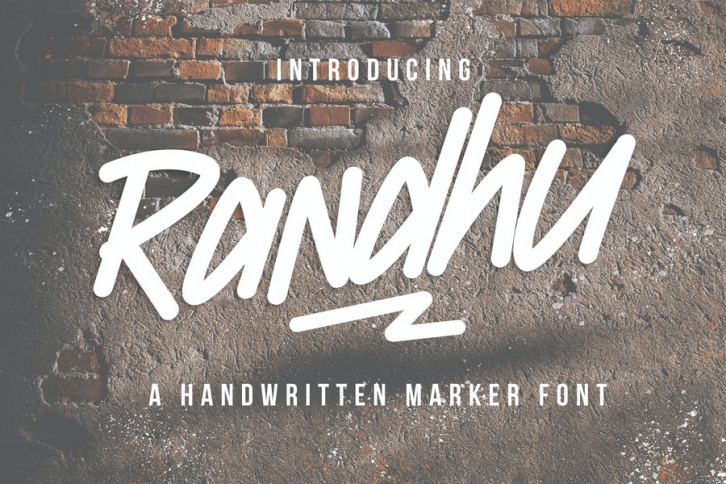
Randhu is a Handwritten Marker Font, perfectly suitable for creating quotes, Fashion, Adventure, Street art designs such as logos, quote, magazines, and more.